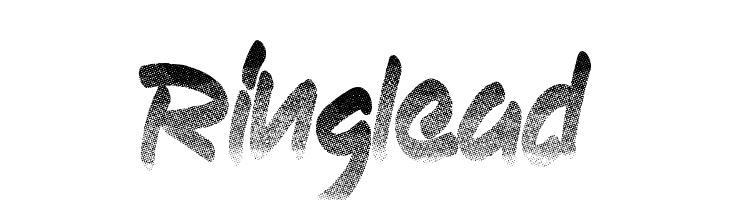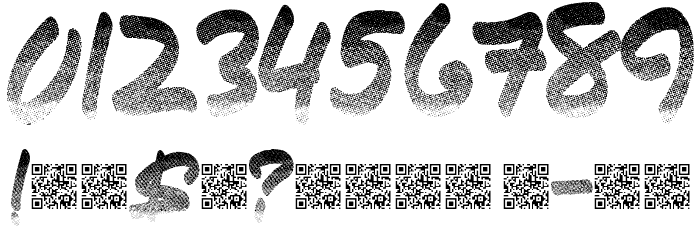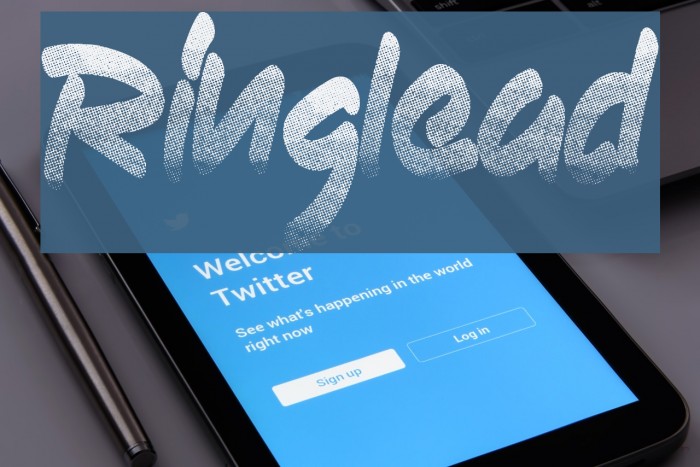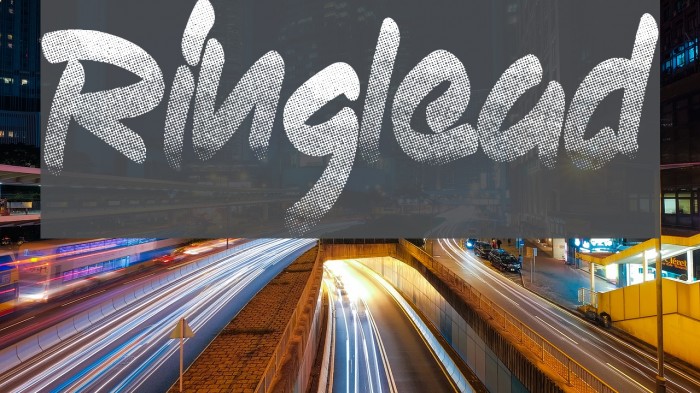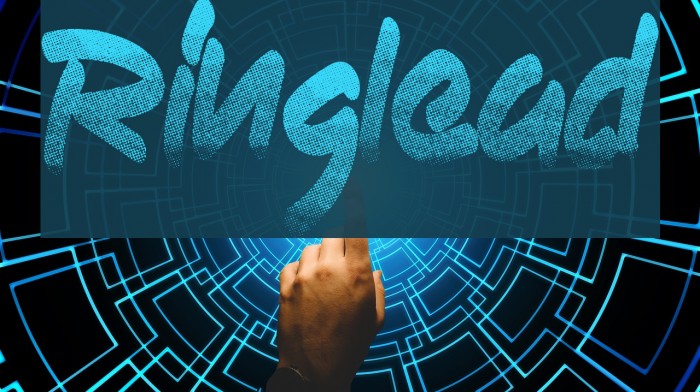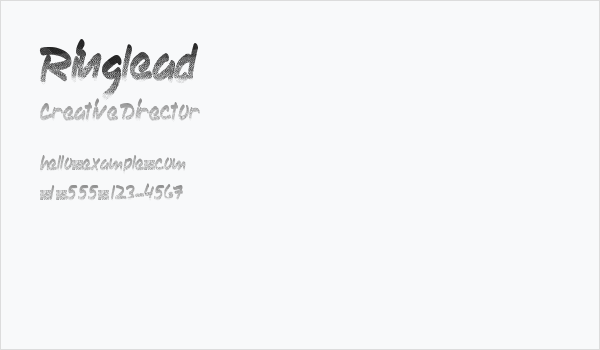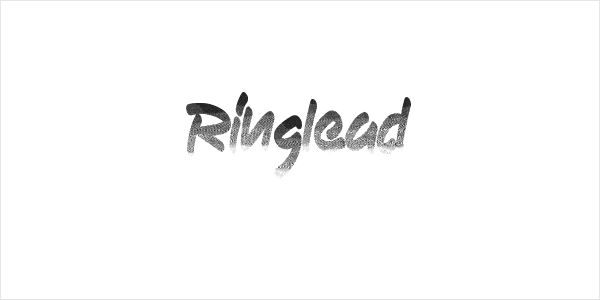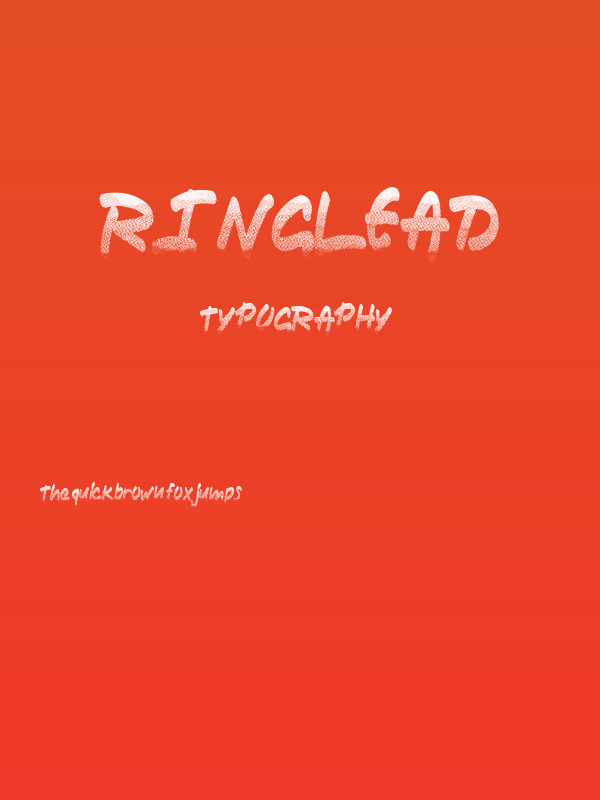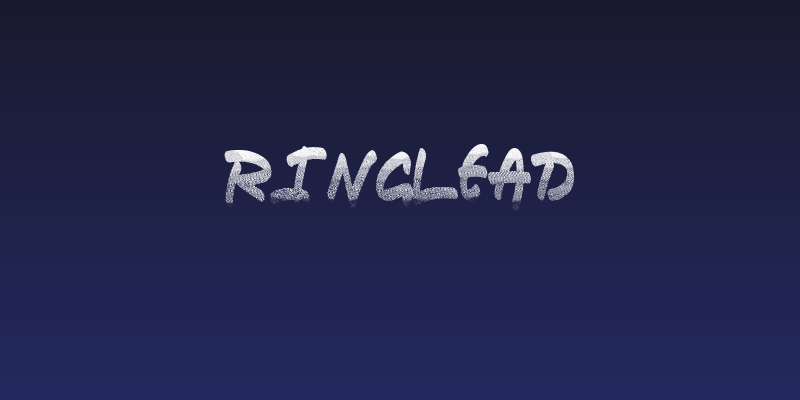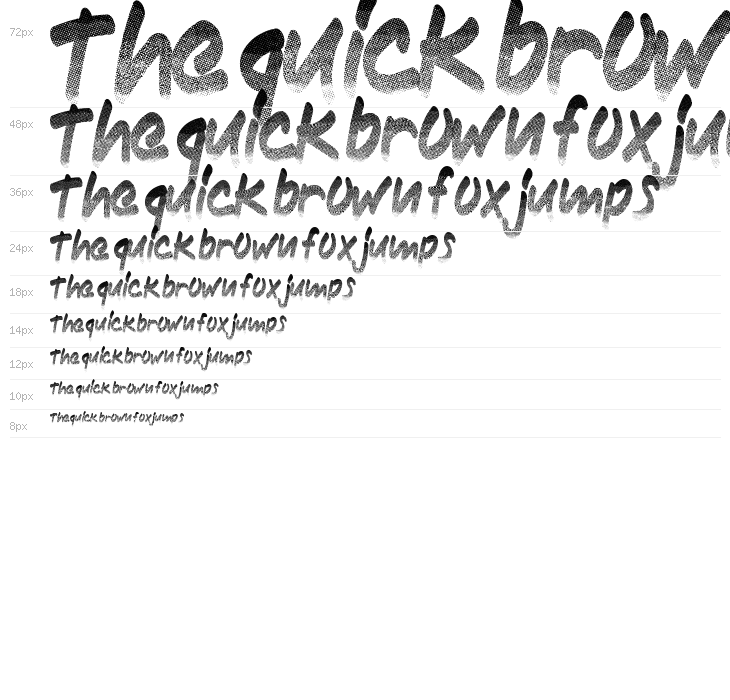
Ringlead Font
Ringlead Description
This font features a bold, energetic style with a hand-drawn appearance. The letters are crafted with a brush-like texture, giving them a dynamic and lively feel. The uppercase and lowercase characters maintain a consistent flow, while the numbers and special characters complement the overall aesthetic. The font's playful and artistic nature makes it suitable for creative projects. Its unique texture adds depth and character, making it stand out in any design. The spacing between characters is balanced, ensuring readability while maintaining its distinctive style.
| Proposed Projects | Ideal for posters, branding, artistic projects, and any design requiring a creative touch. |